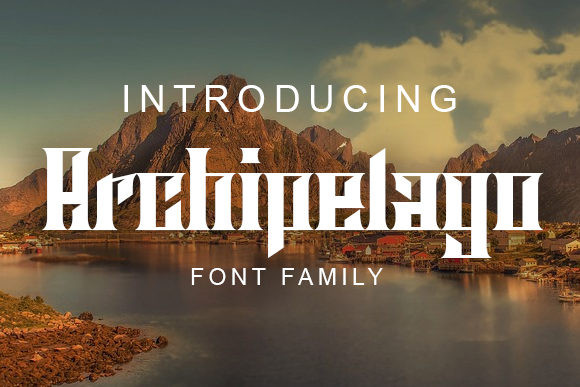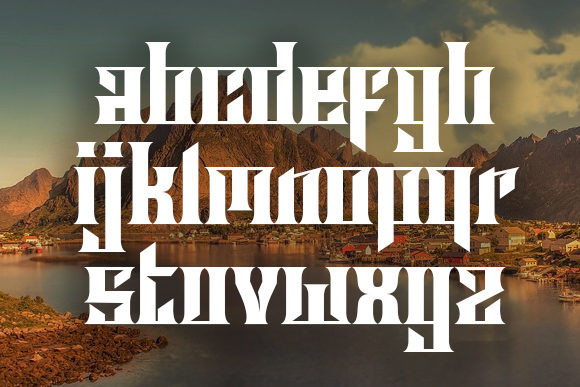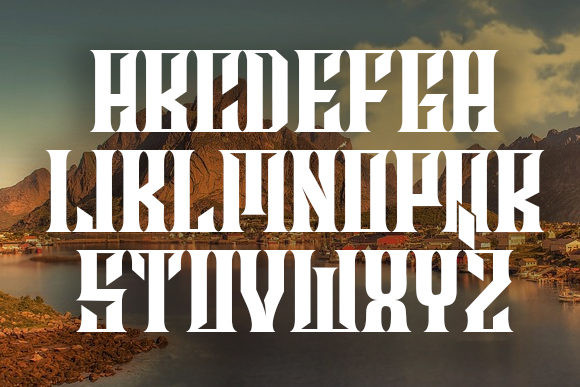
Archipelago Font
Archipelago is a modern gothic display font family that comes in four various styles. Add it confidently to your projects, and you will love the results.